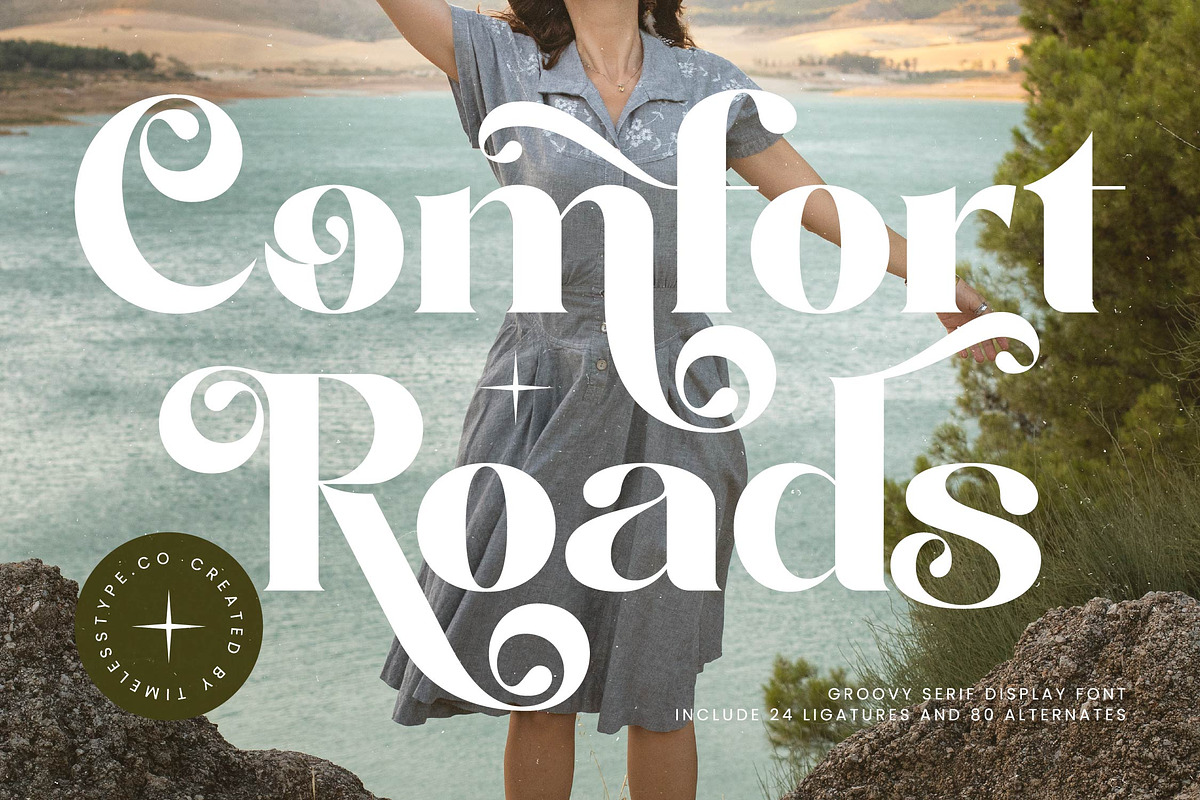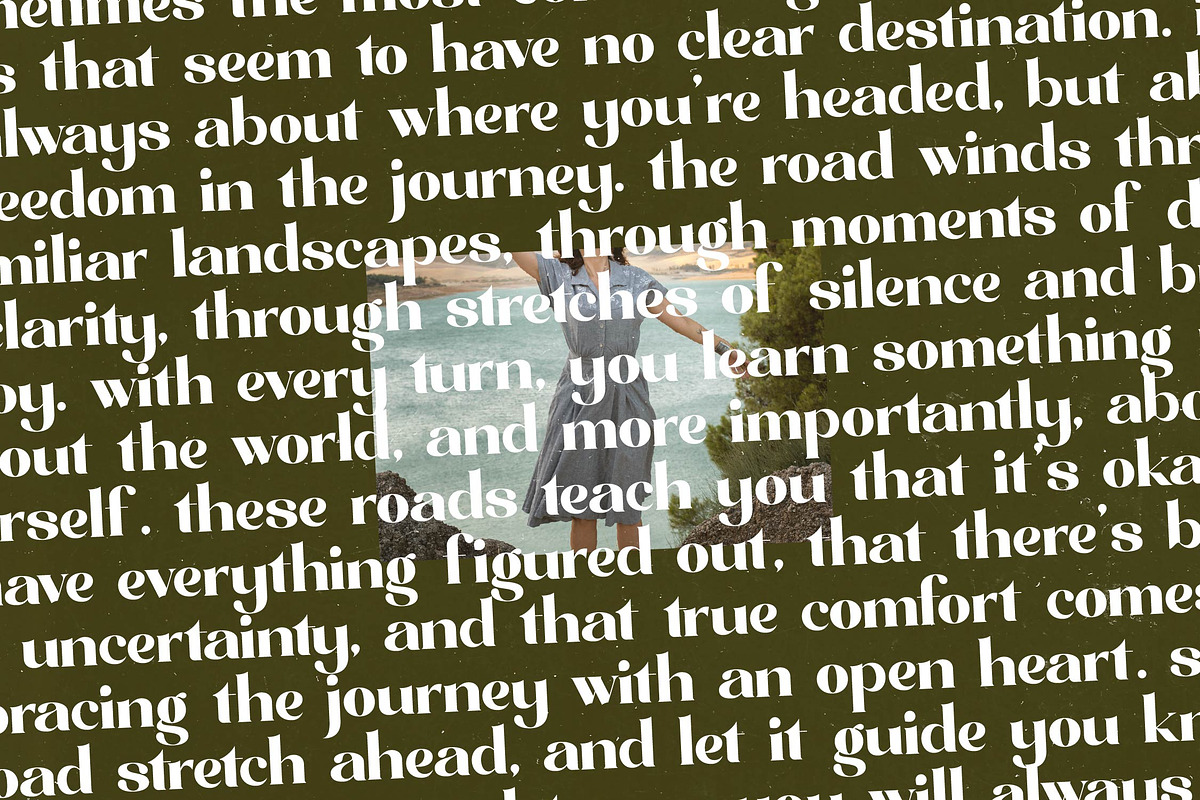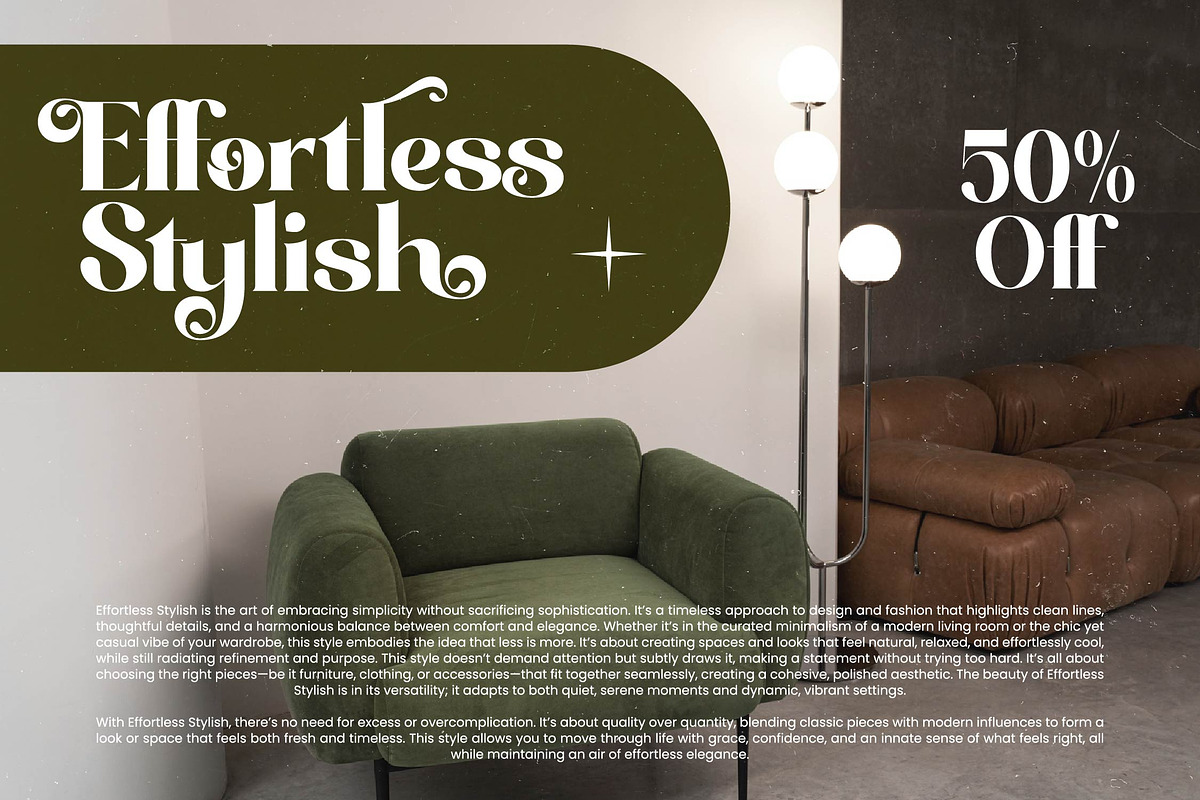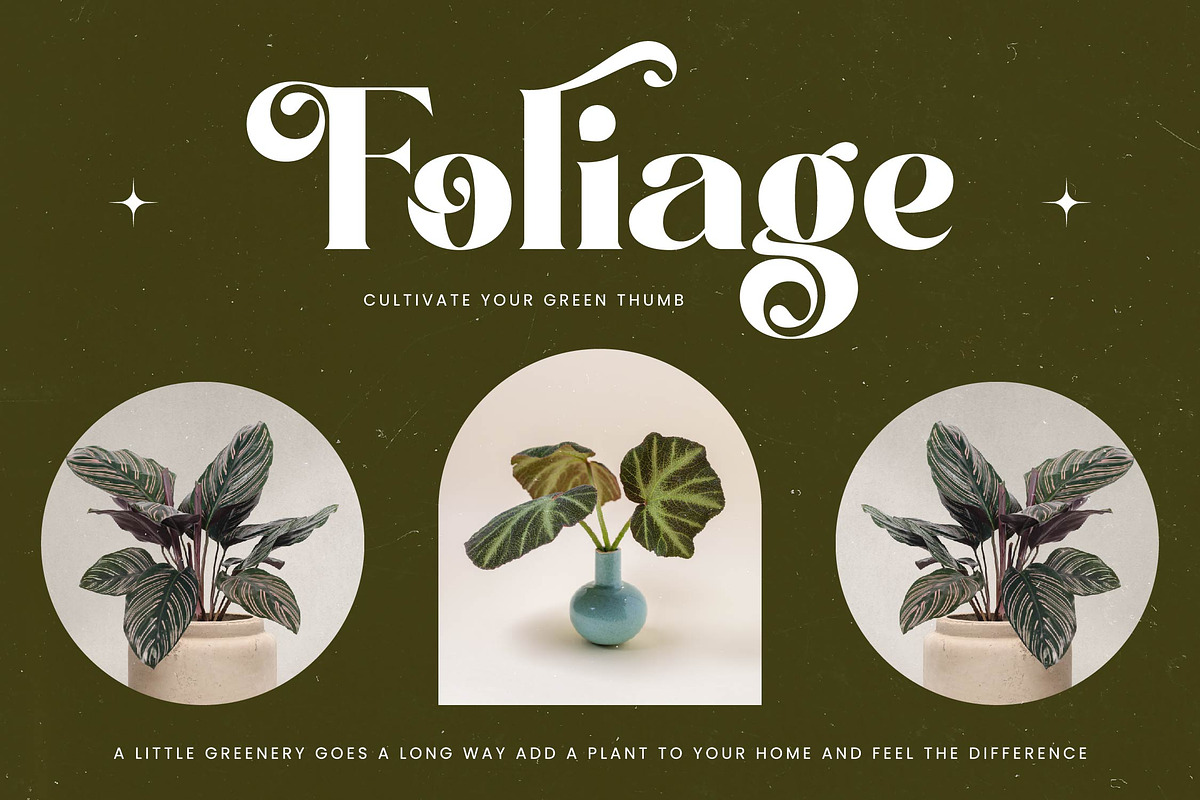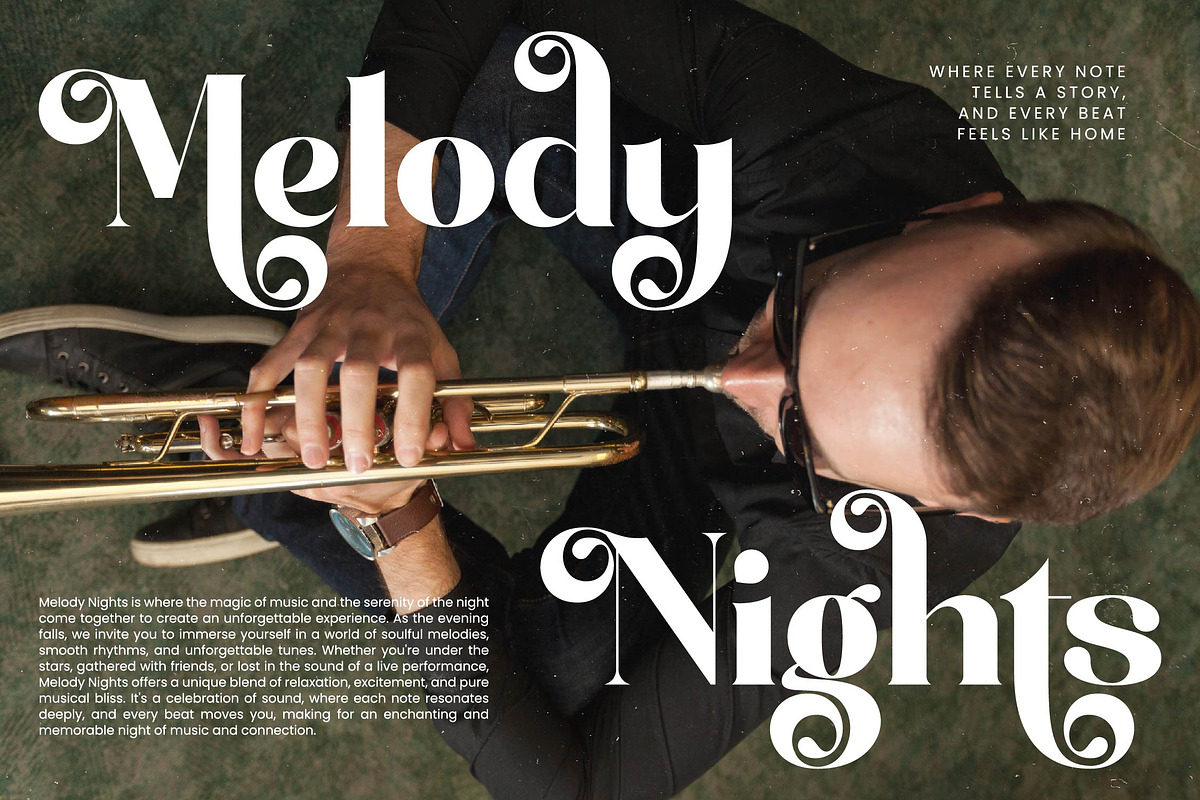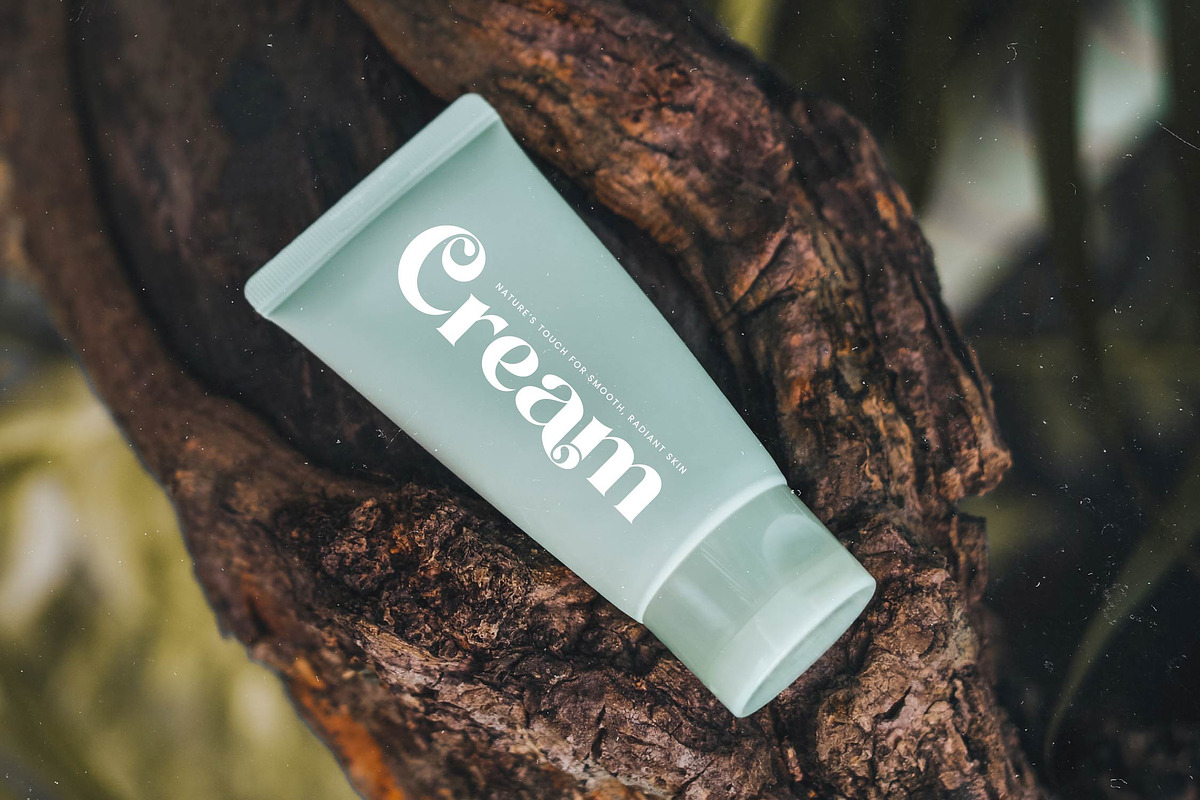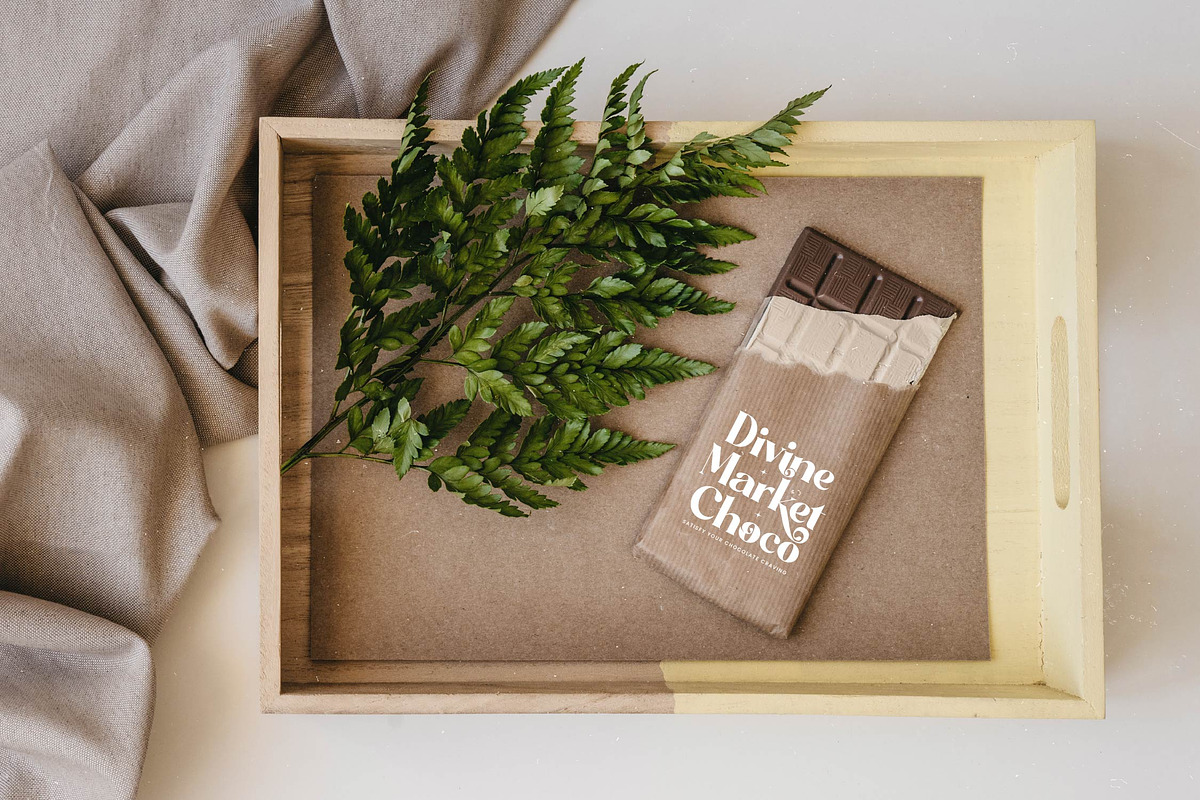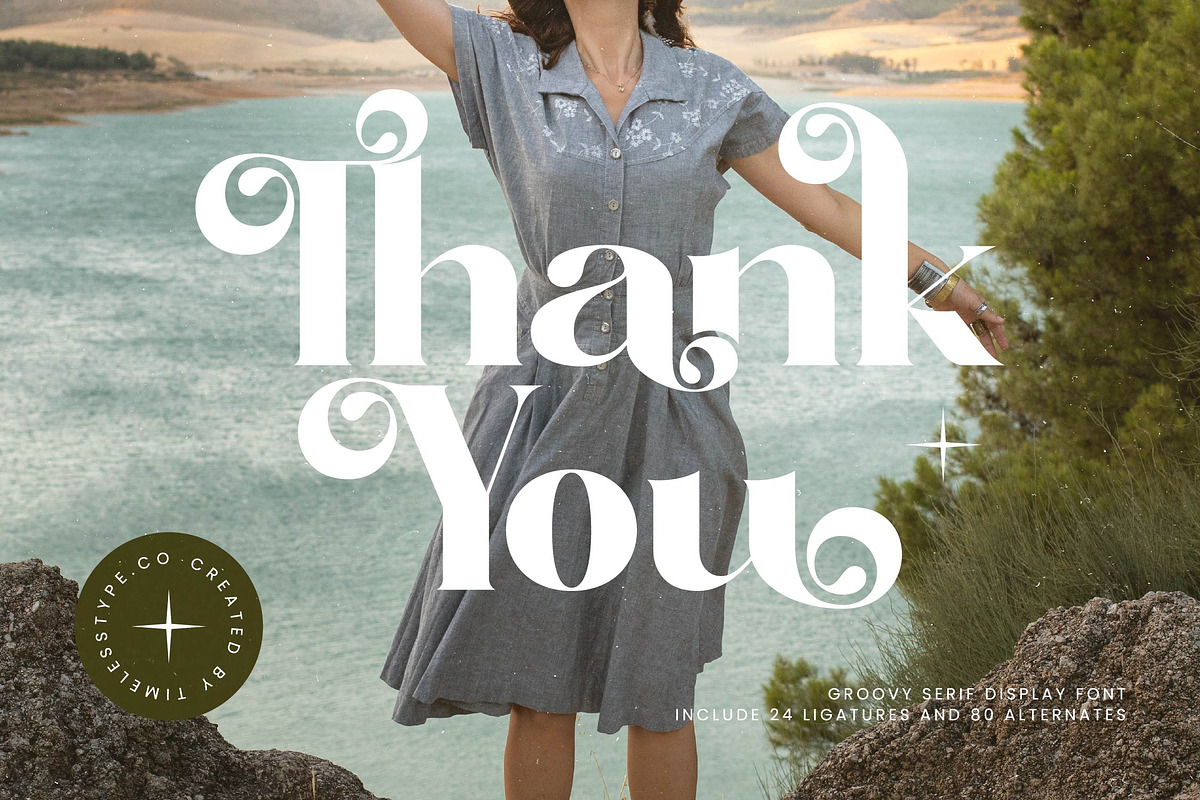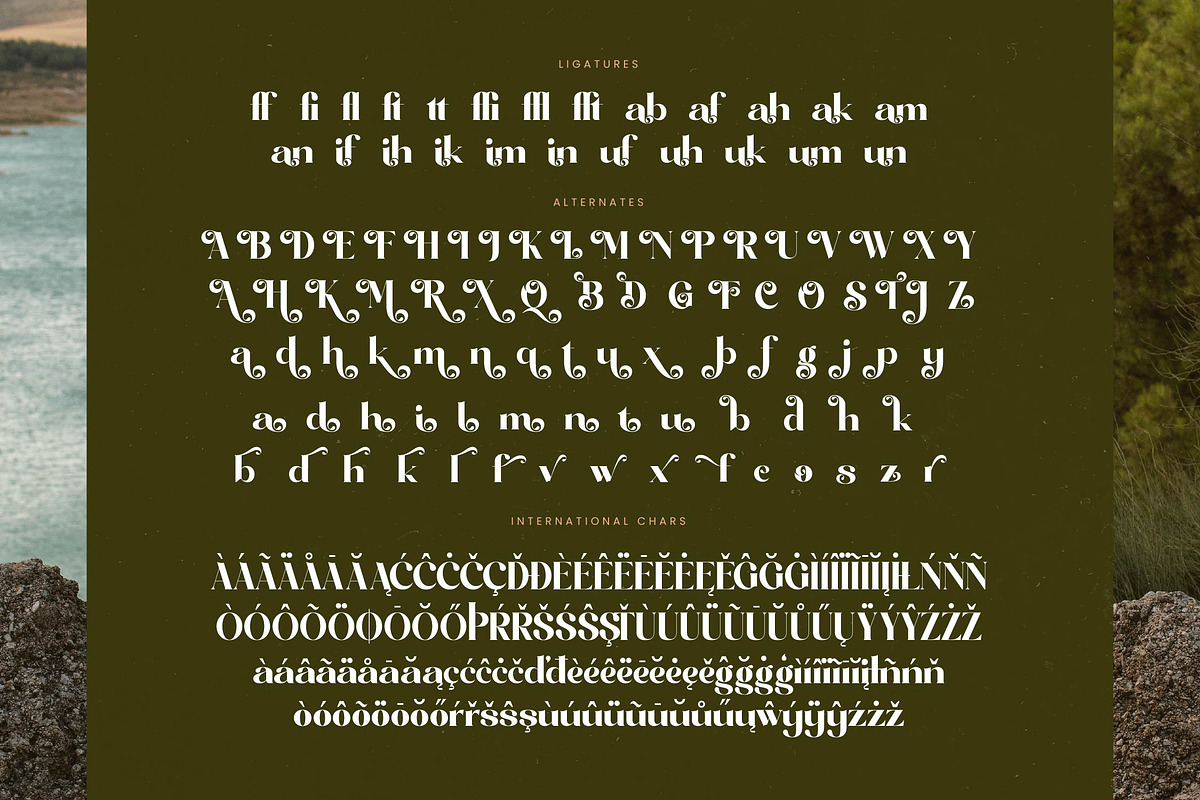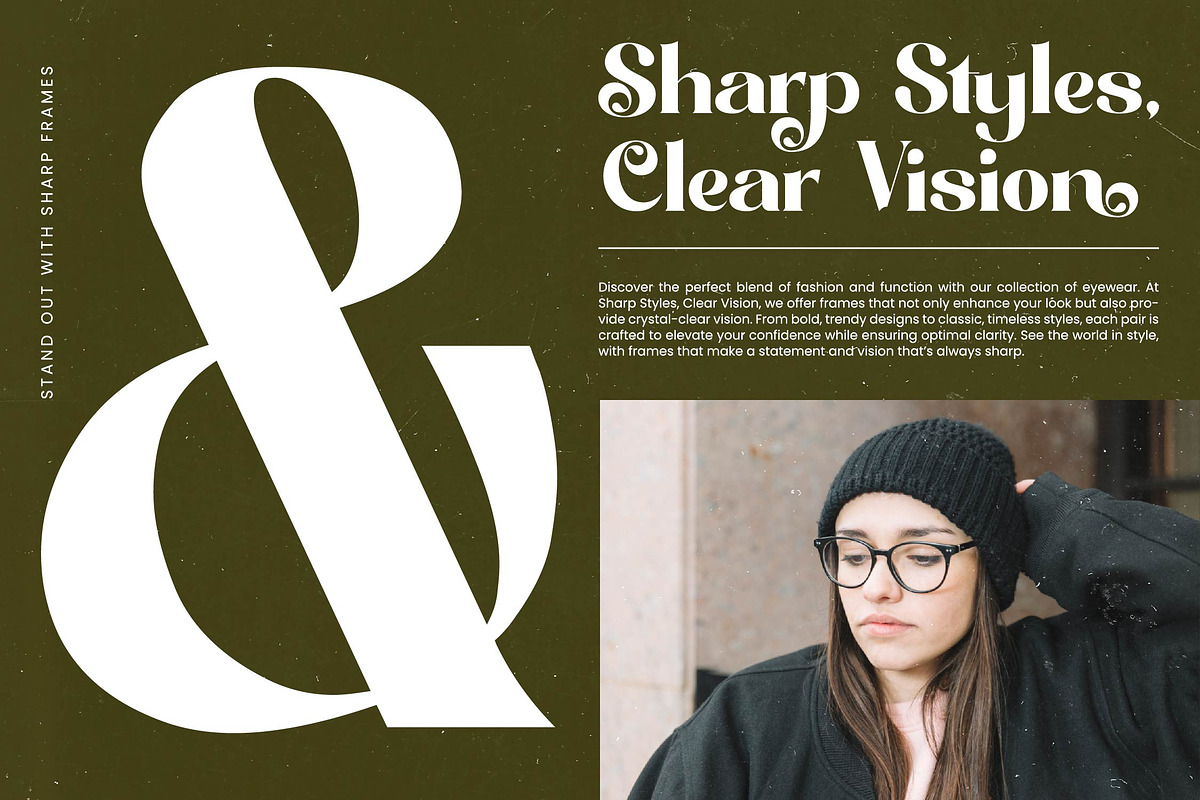
Comfort Roads Groovy Serif Font
Comfort Roads invites you to embrace a world of nostalgic elegance and fluid movement, transforming simple text into a captivating visual narrative. This typeface is the perfect companion for designers seeking to infuse their work with a sense of timeless adventure and sophisticated charm.
Drawing inspiration from the winding coastal paths and the effortless chic of vintage travel posters, this font captures the spirit of a sun-soaked afternoon. The design blends organic, flowing curves with sharp, precise edges to evoke an atmosphere that is both grounded and whimsical.
This modern serif display is a powerhouse of style, offering a masterclass in luxury typography through its striking high-contrast serif architecture. Designed specifically as an editorial font, it delivers a massive branding impact that demands attention while maintaining an air of refined grace.
As the modern serif trend continues to dominate the visual landscape, this typeface provides the perfect solution for designers seeking editorial display fonts with a unique soul. It offers the kind of character-driven typography that bridges the gap between mid-century nostalgia and contemporary minimalism.
From iconic logo design to cohesive visual branding, this font is a versatile tool for high-end editorial layouts and luxury product packaging. Its romantic flourishes make it a dream for wedding stationery, while its bold presence adds a high-fashion edge to any fashion campaign or lifestyle magazine spread.
Beyond its basic set, the font includes 24 artfully crafted ligatures and 80 unique alternates featuring elegant swashes for custom compositions. It provides comprehensive multilingual support and a vast library of international characters, ensuring your message resonates beautifully across the globe.
- Ligature 24 Alternate 80